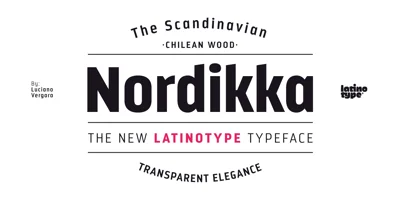
Nordikka Font
Nordikka Font is ideal for Scandinavian design studios, Nordic lifestyle brands, minimalist furniture companies, Norwegian fjord tourism, Swedish design exhibitions, Danish hygge products, arctic adventure tours, and authentic Nordic cultural materials. This refined typeface brings Scandinavian elegance and Nordic minimalism to any design project celebrating the clean beauty and functional sophistication of Northern European design philosophy.
What makes Nordikka Font exciting is its perfect embodiment of Nordic design principles combined with Scandinavian functionality that captures the essence of hygge, lagom, and the timeless minimalist aesthetic that defines Northern European cultural sophistication. The clean letterforms feature Nordic proportions and minimalist clarity that create an unmistakably Scandinavian appearance. Each character reflects the serene beauty of Nordic landscapes, making it ideal for brands that celebrate Scandinavian lifestyle, Nordic design excellence, and the peaceful sophistication of Northern European living.
The Nordikka Font family typically includes multiple weights from light to bold with complete uppercase and lowercase letters, numbers, punctuation marks, and Nordic symbols. Many versions feature additional Scandinavian decorative elements, minimalist motifs, and Nordic cultural symbols that enhance the clean aesthetic and provide creative flexibility for Nordic design and lifestyle applications.
Whether you're developing Scandinavian lifestyle brands or creating Nordic cultural materials, Nordikka Font offers unmatched Nordic authenticity and minimalist sophistication. This serene typography choice transforms ordinary text into peaceful communications that resonate with audiences appreciating Scandinavian design and Nordic lifestyle values. The font's clean construction ensures exceptional performance across minimalist applications while maintaining its distinctive Nordic character that makes every design project feel like a tranquil moment in the pristine beauty of Scandinavian landscapes where simplicity meets functionality in perfect Nordic harmony.